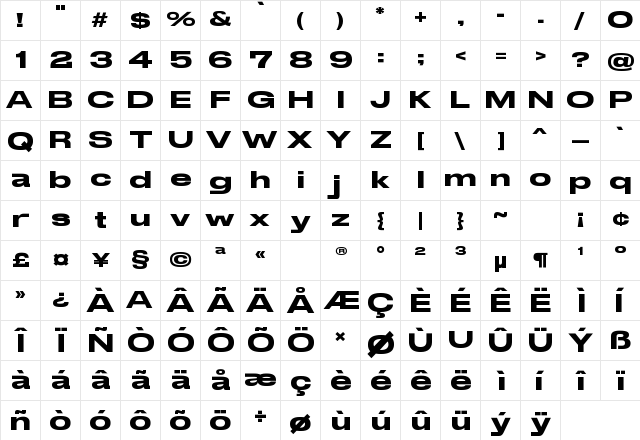
Stretch Pro Regular
| Foundry | Jetsmax |
| Designer | Ril Anwar |
Design Context for Stretch Pro Typeface
Stretch Pro offers clean, dependable letterforms without strong stylistic allegiance, making it a practical choice for designers who need flexibility.
Pro Tip: Use Stretch Pro in both headline and body roles to test its range before committing to a single application.